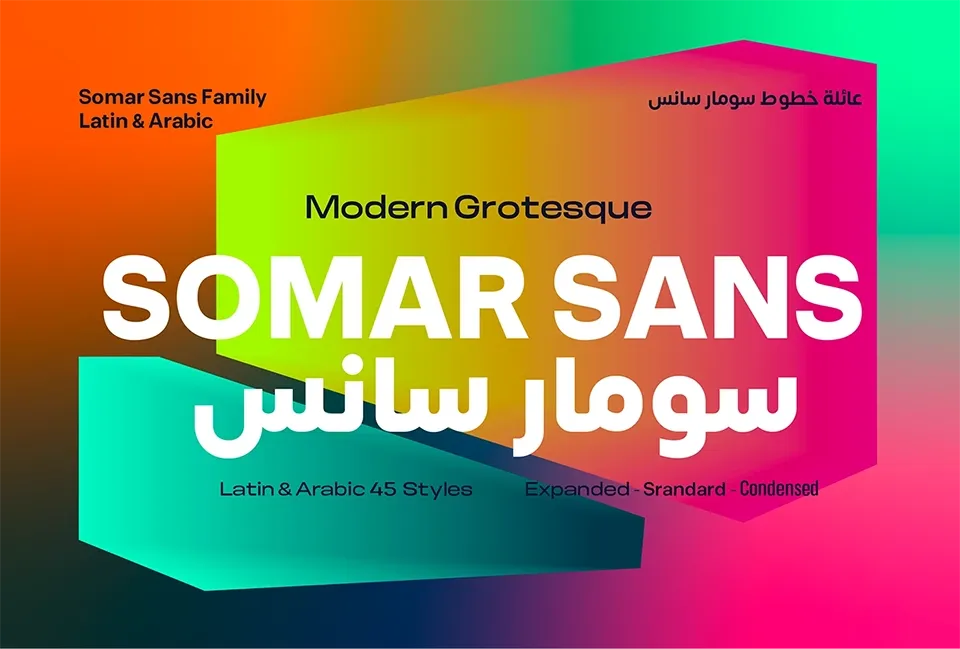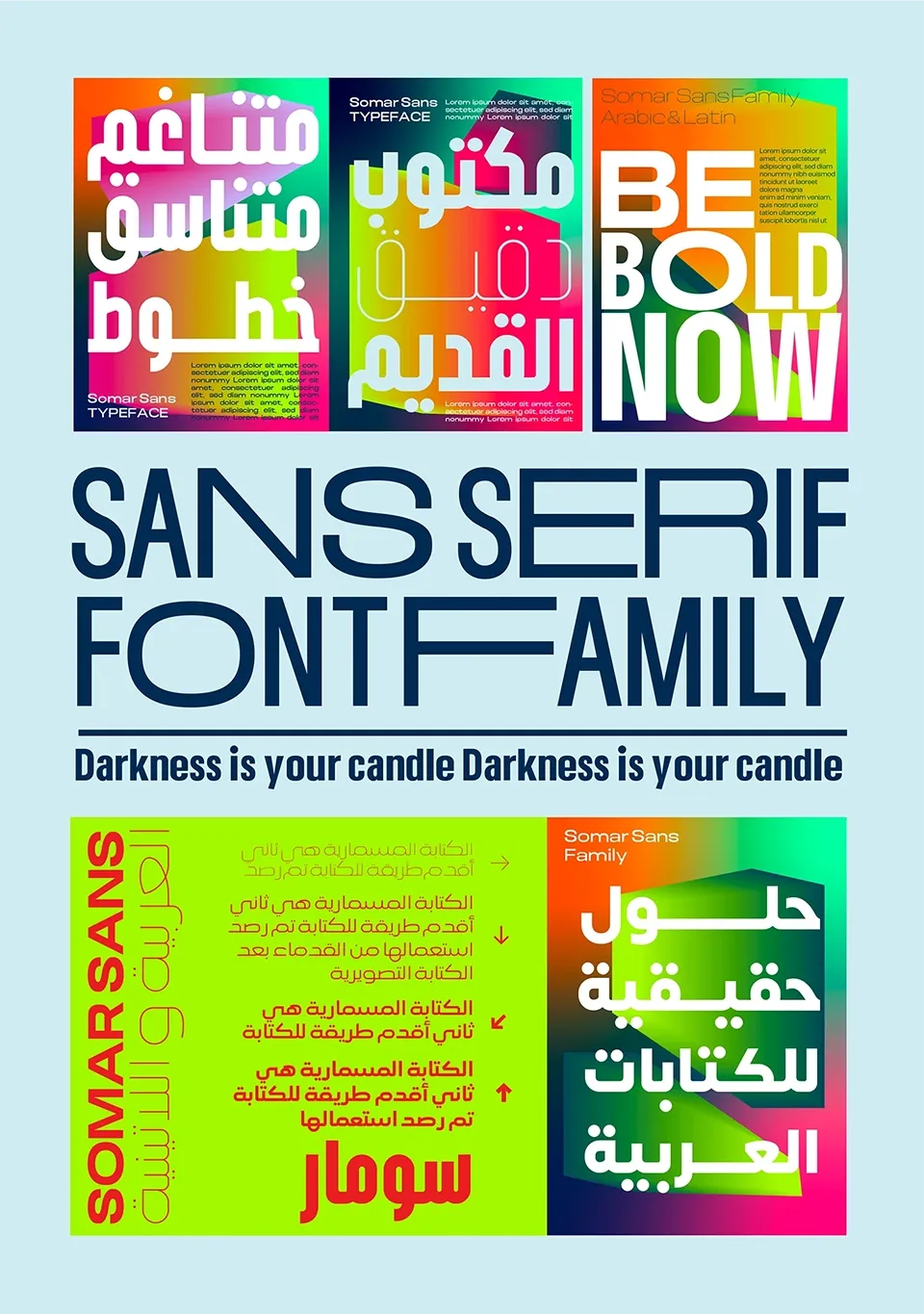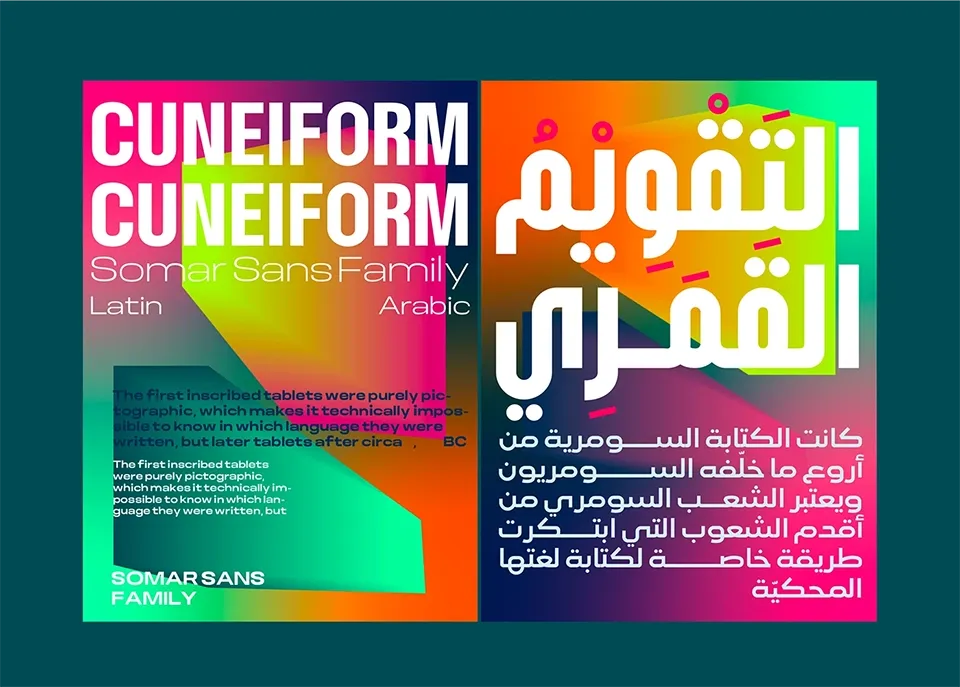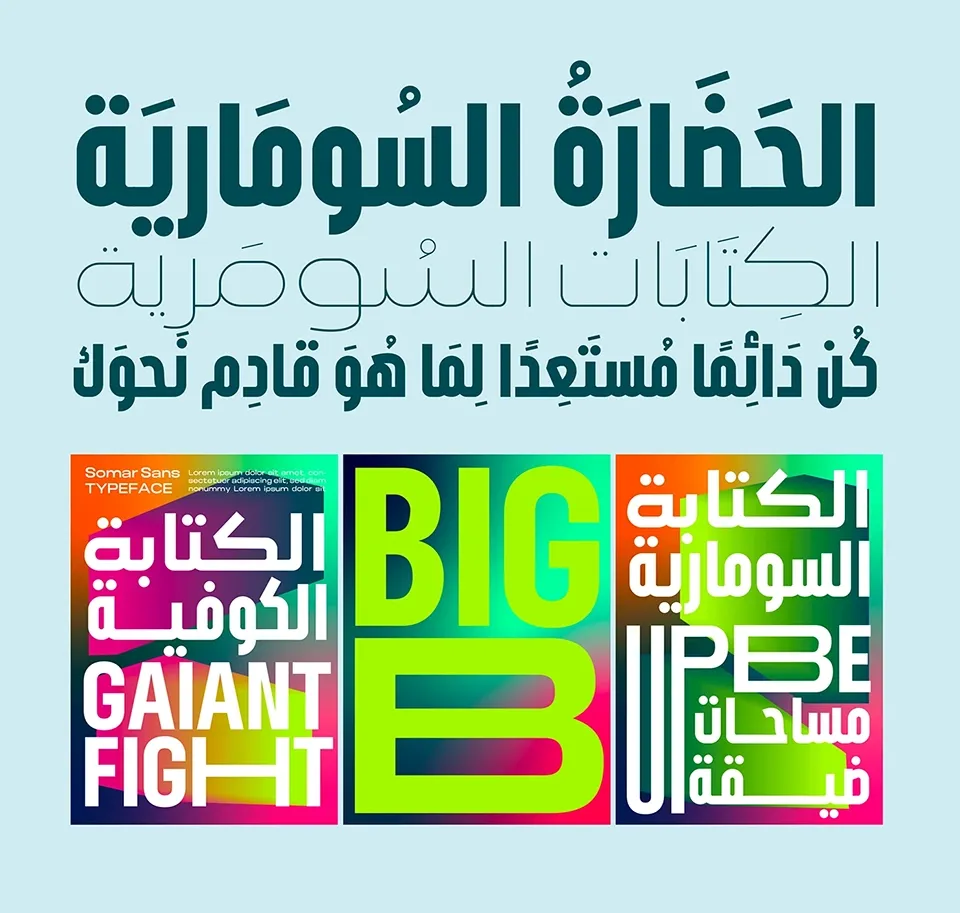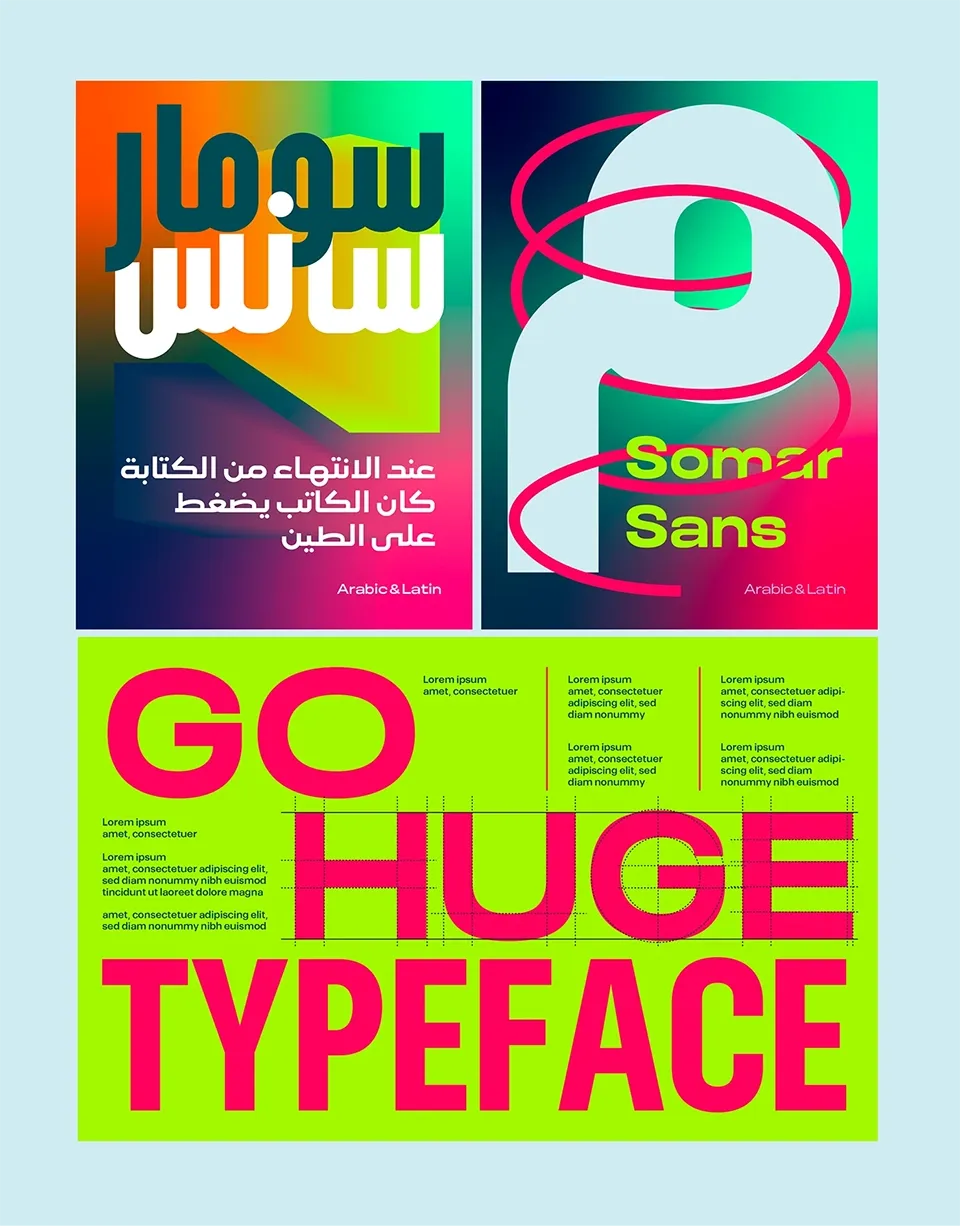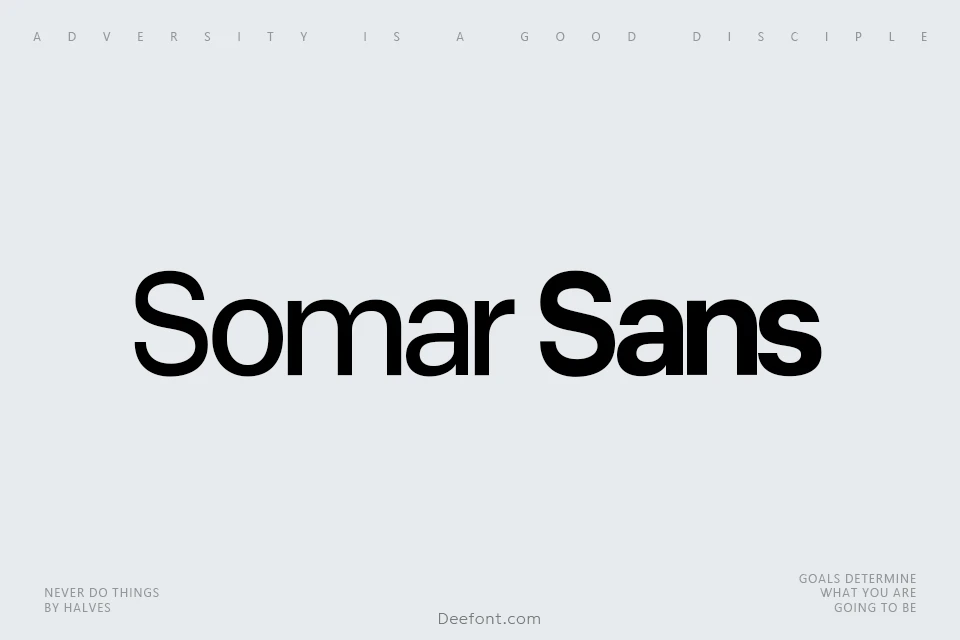
Somar Sans Font Family
Somar Sans Font Family is a modern and versatile grotesque typeface designed to support both Latin and Arabic scripts. Created by Baianat Type Design, this font family offers 54 styles ranging from normal to compressed and wide, making it suitable for a wide array of applications including websites, advertisements, and publications. Its flexibility allows it to be used effectively for titles, body texts, and headlines, adapting well to both bold sizes and small spaces. The font supports up to fifty languages, ensuring broad usability for multilingual projects.